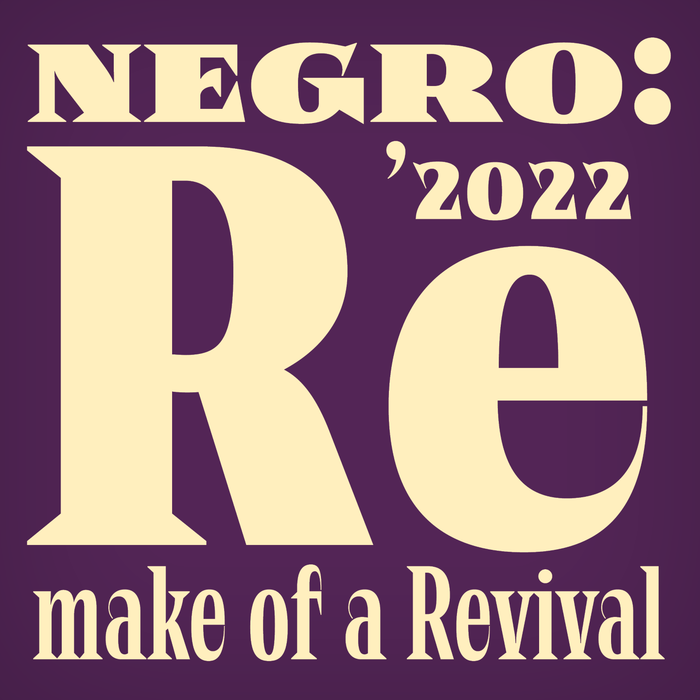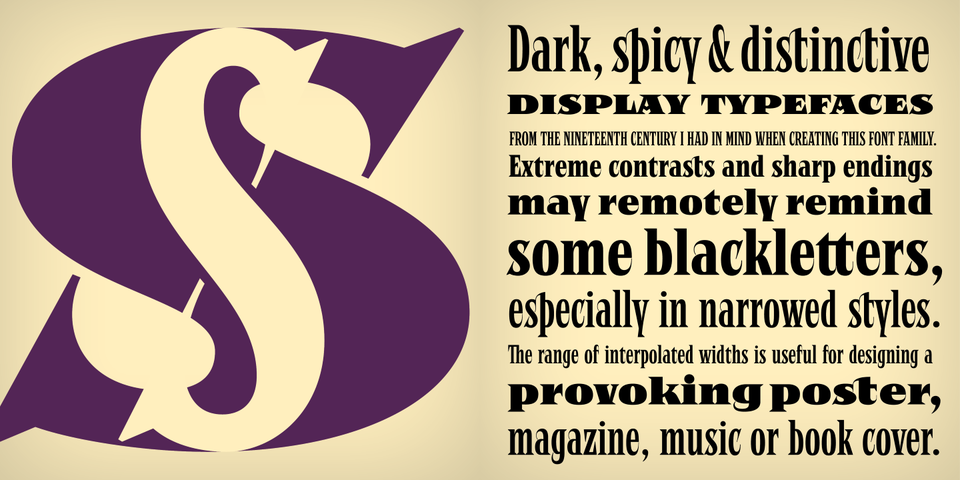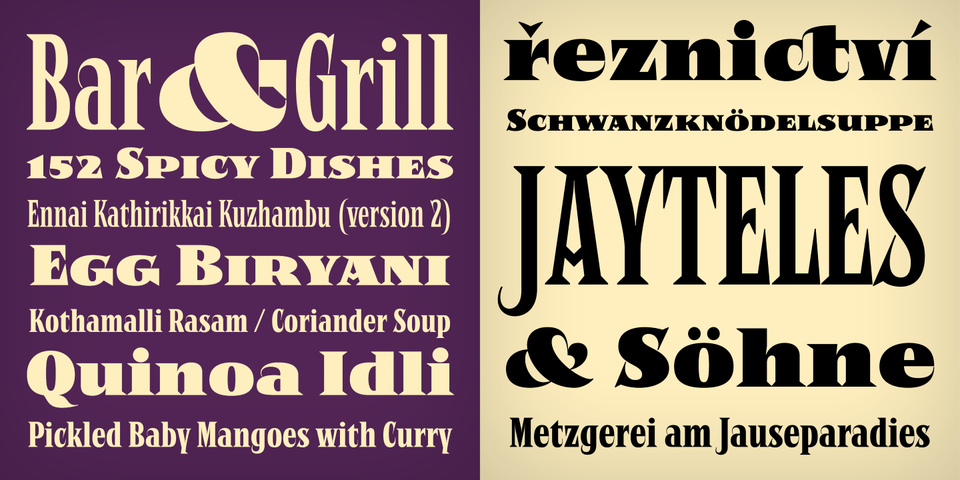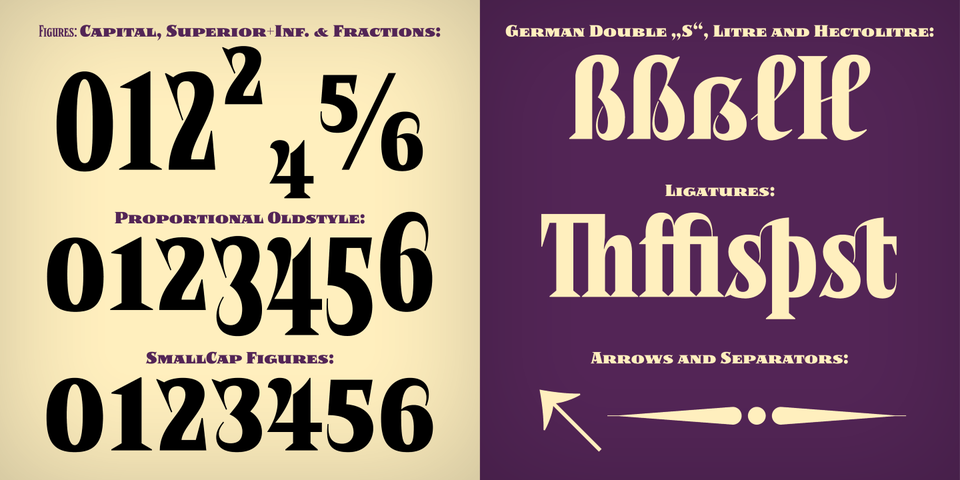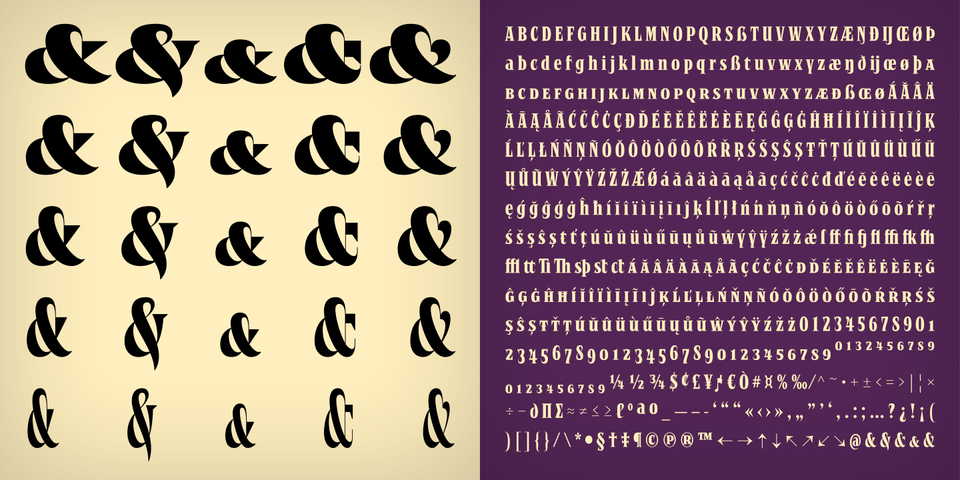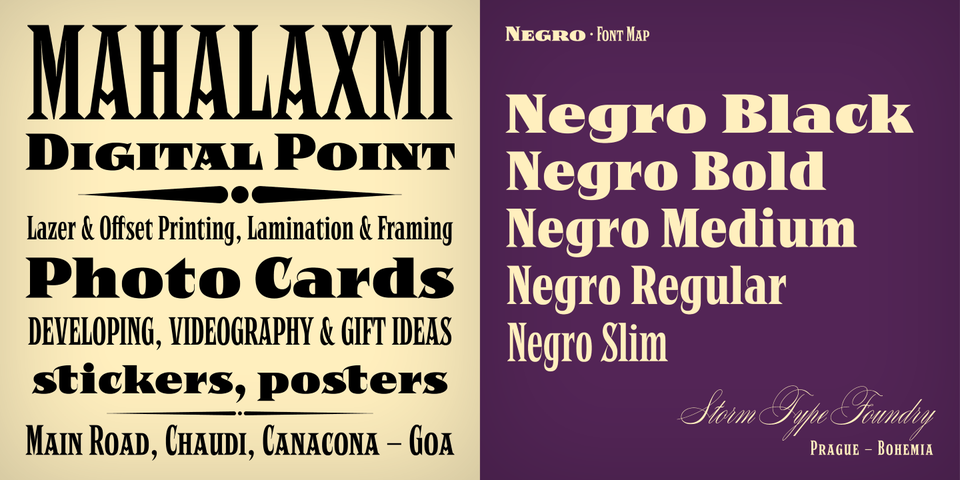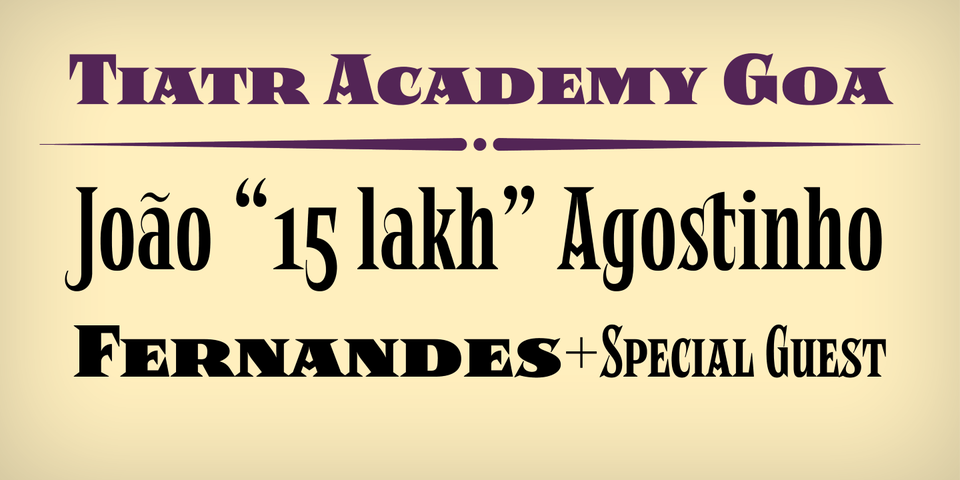
by František Štorm
Dark, spicy & distinctive display typefaces from the nineteenth century I had in mind when creating this font family. Extreme contrasts and sharp endings may remotely remind some blackletters, especially in narrowed styles. The range of interpolated widths is useful for designing a provoking poster, magazine, music or book cover.